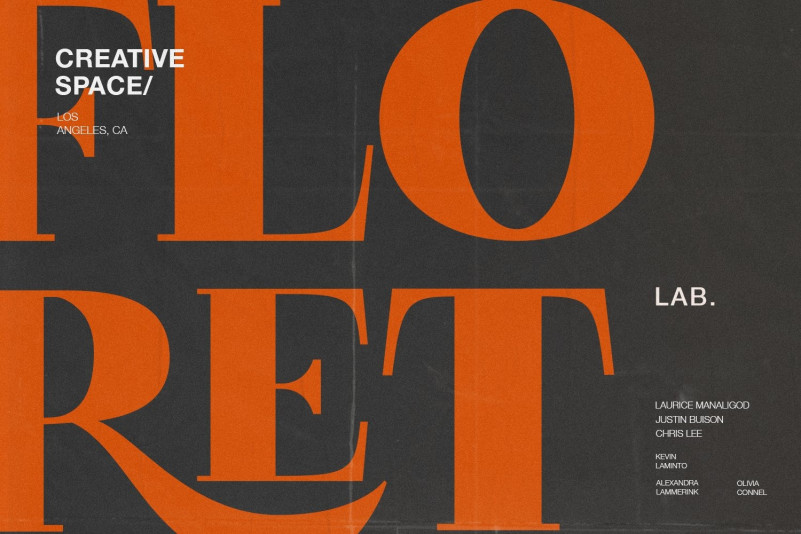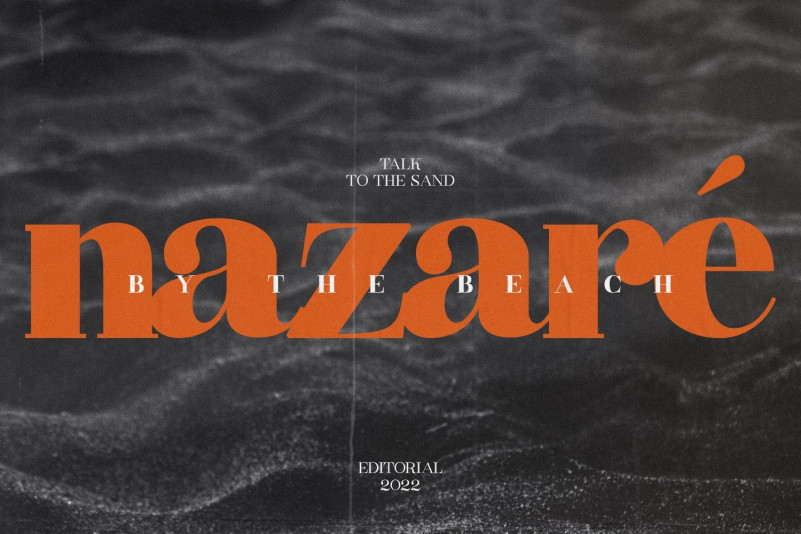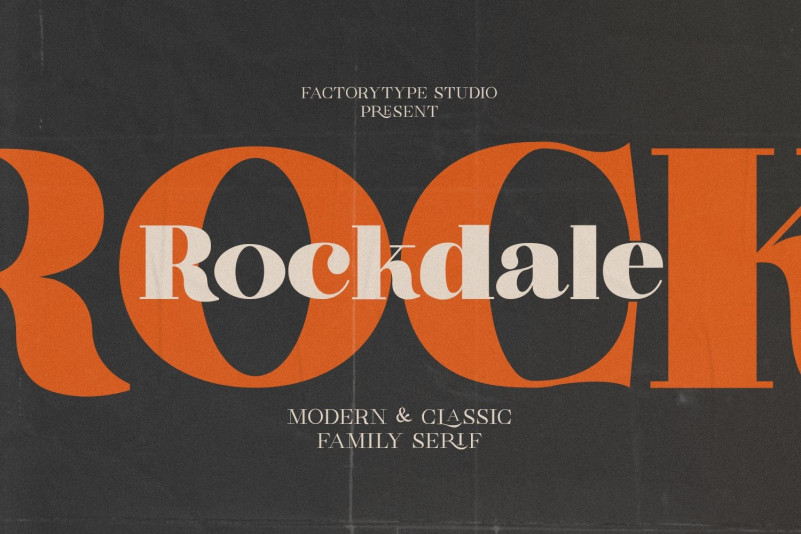
Rockdale Font is a bold and luxurious serif font designed for brand or logo design. It teases your eyes with its curves while still maintaining a modern and classy demeanor. The various weights offer a variety of options for determining the best typographic color.
Rockdale Font
| Designer Name: | Factory738 |